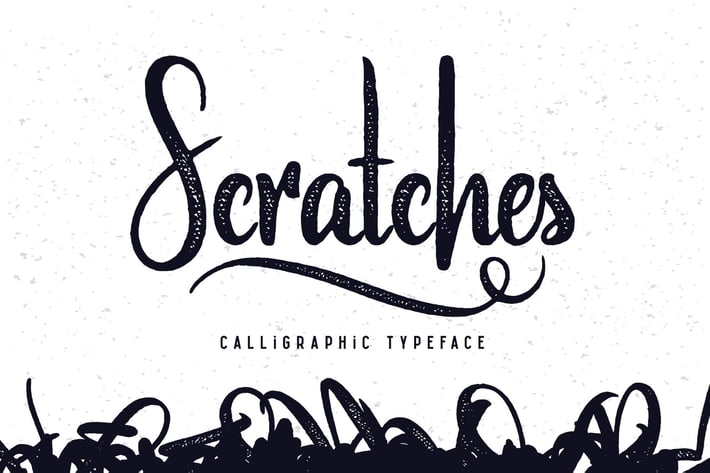
Scratches calligraphic font
Hello! Presenting a textured calligraphic script font named "Scratches". It has authentic handcrafted look and lots of additional characters & swashes.